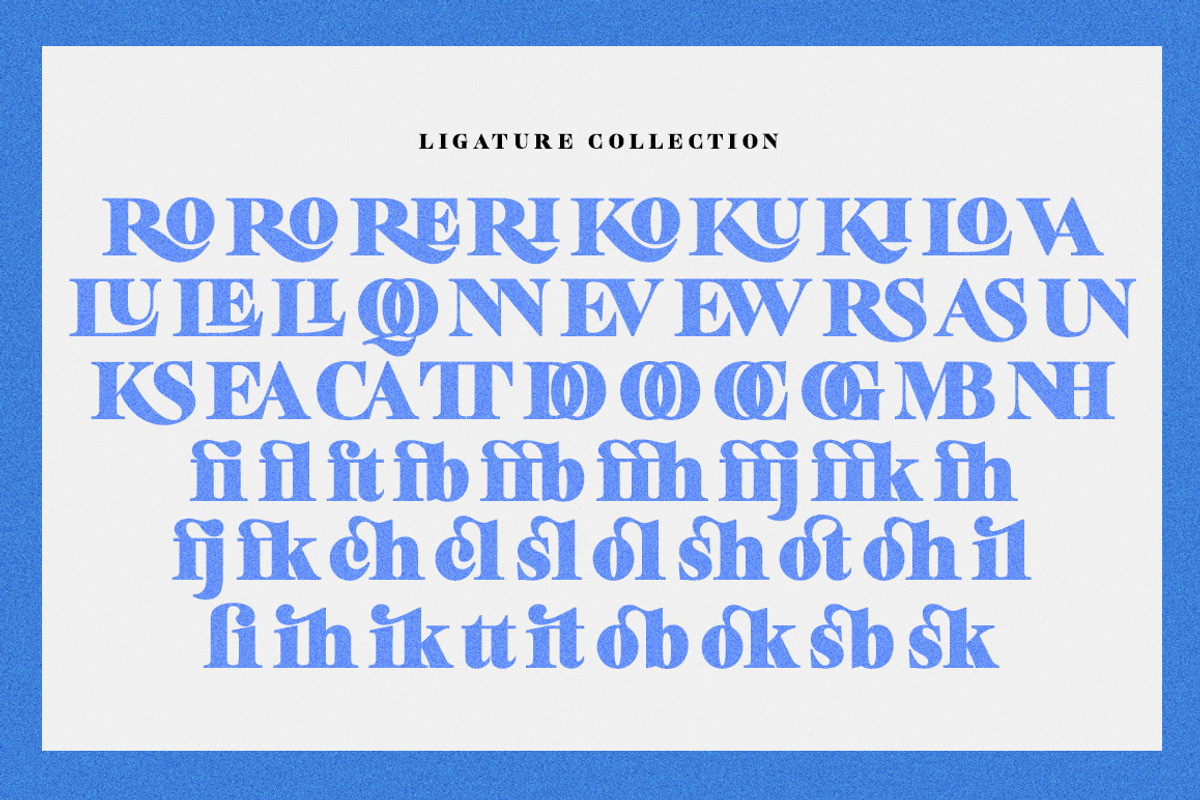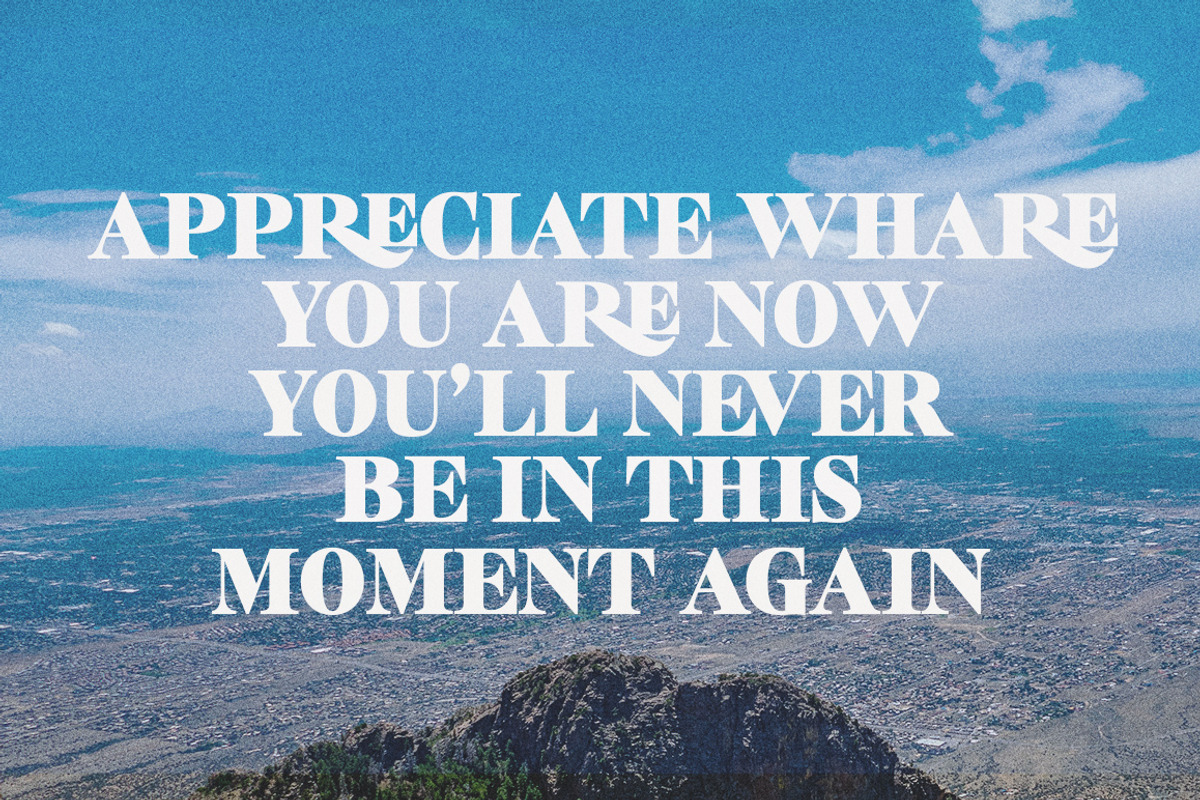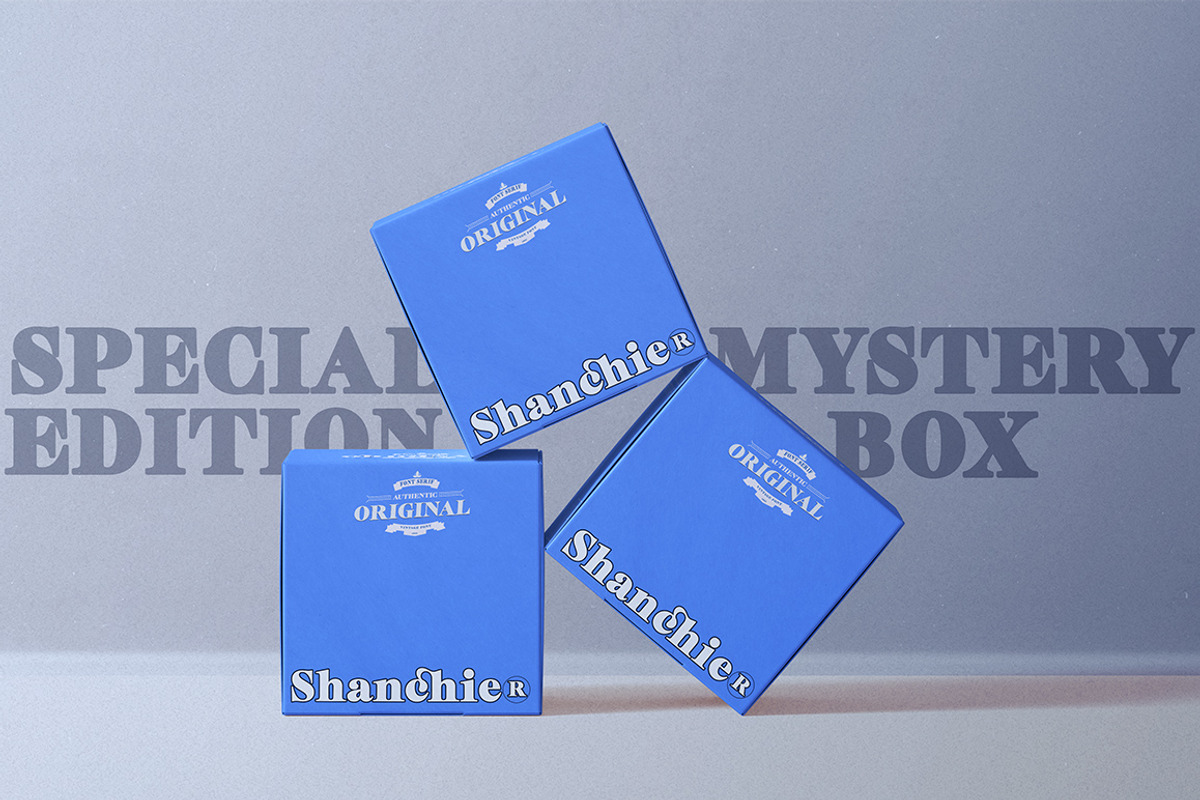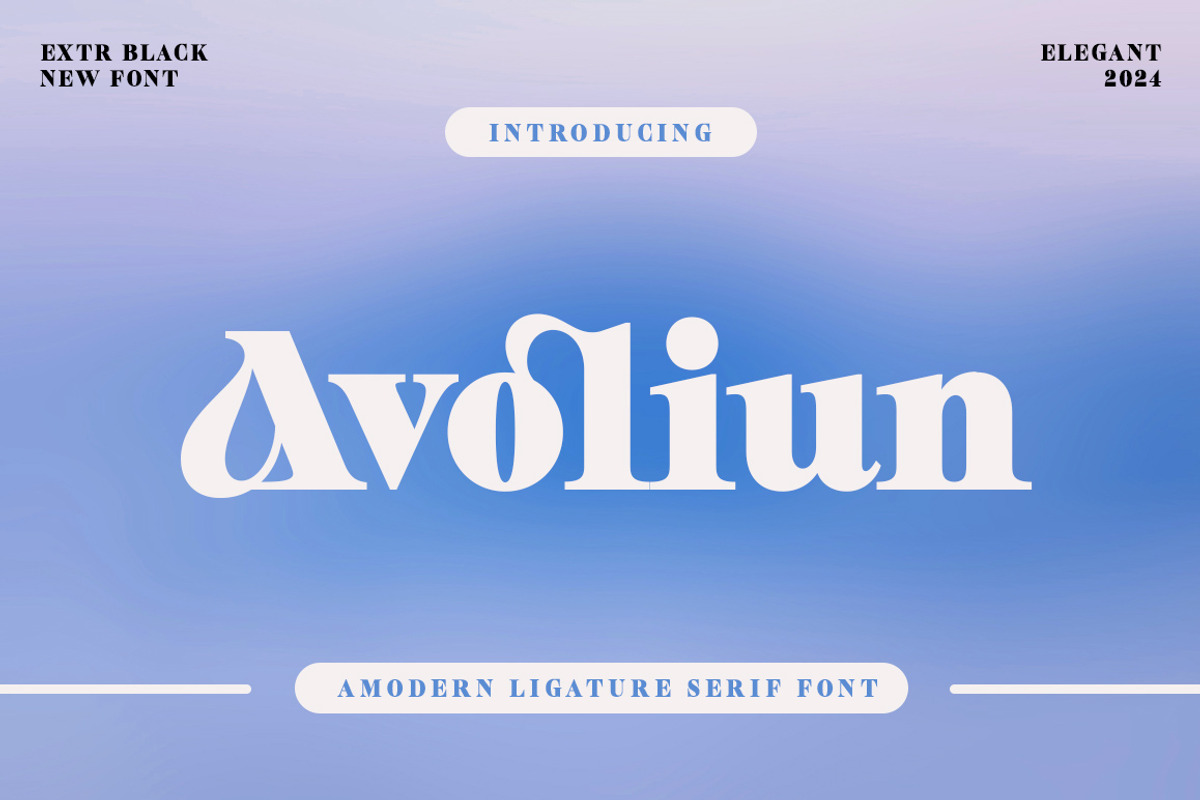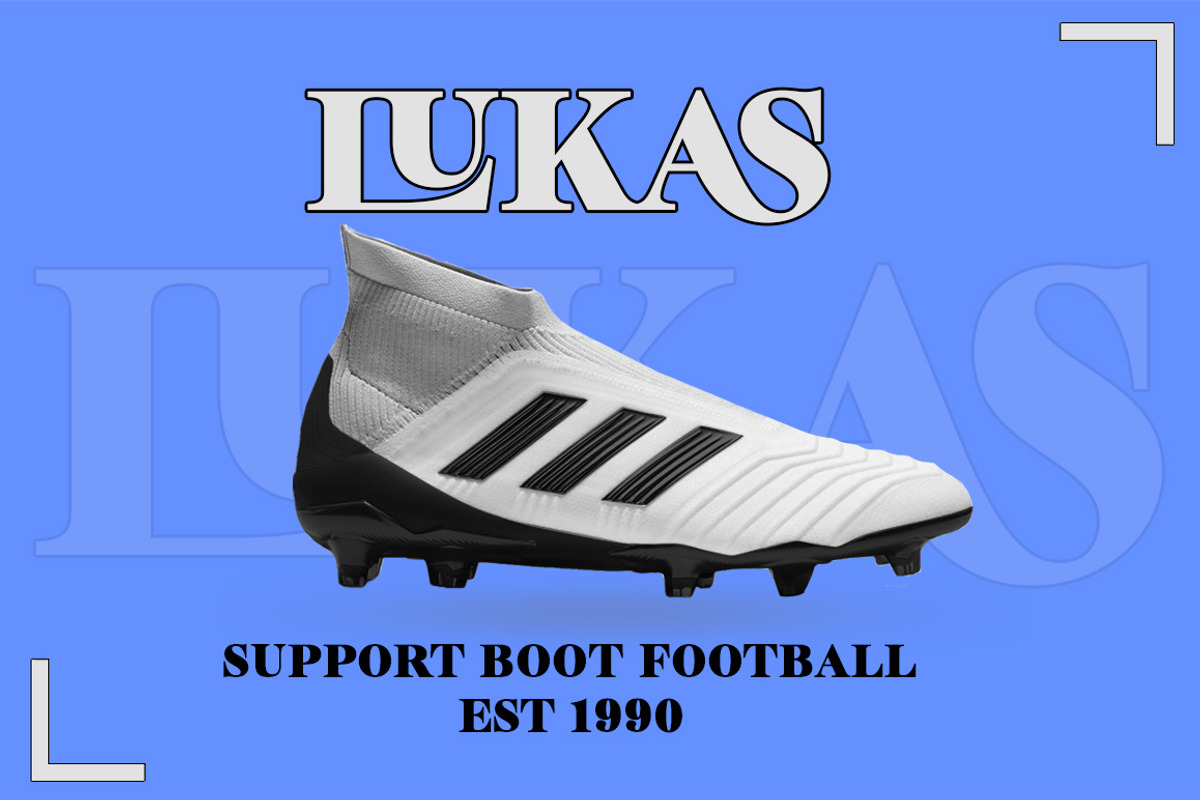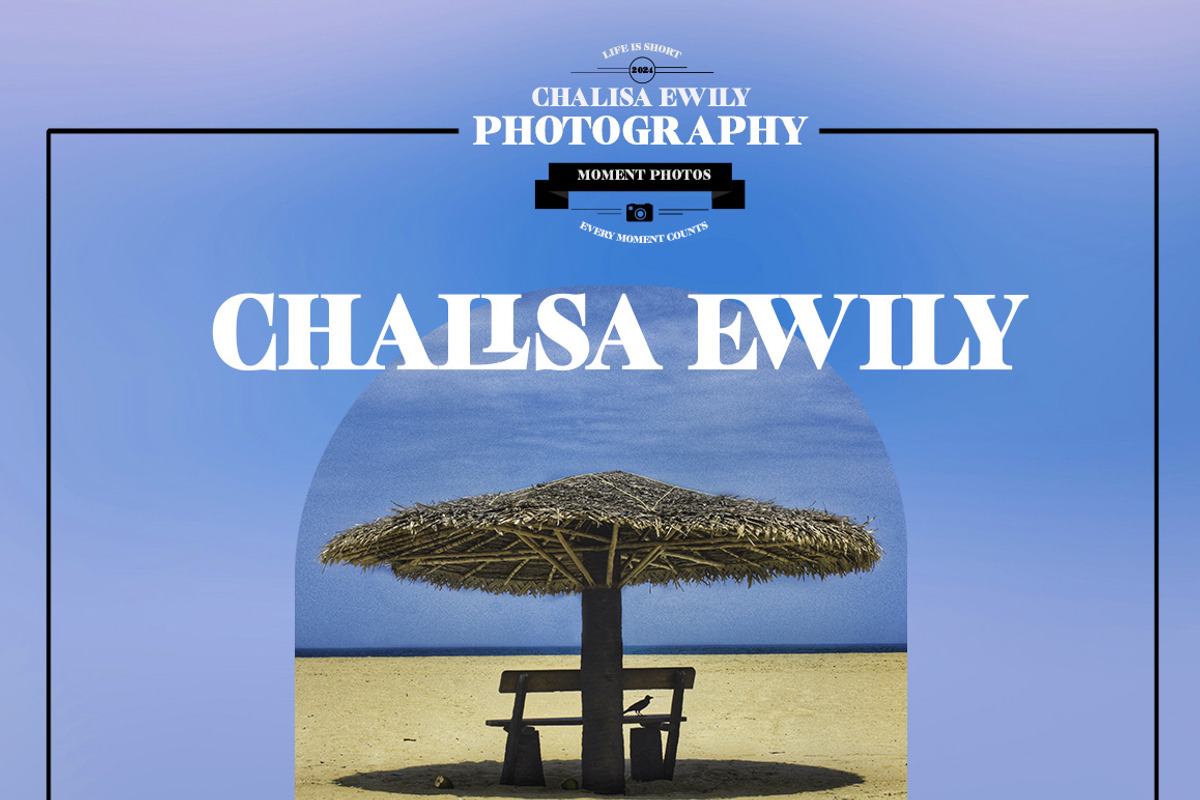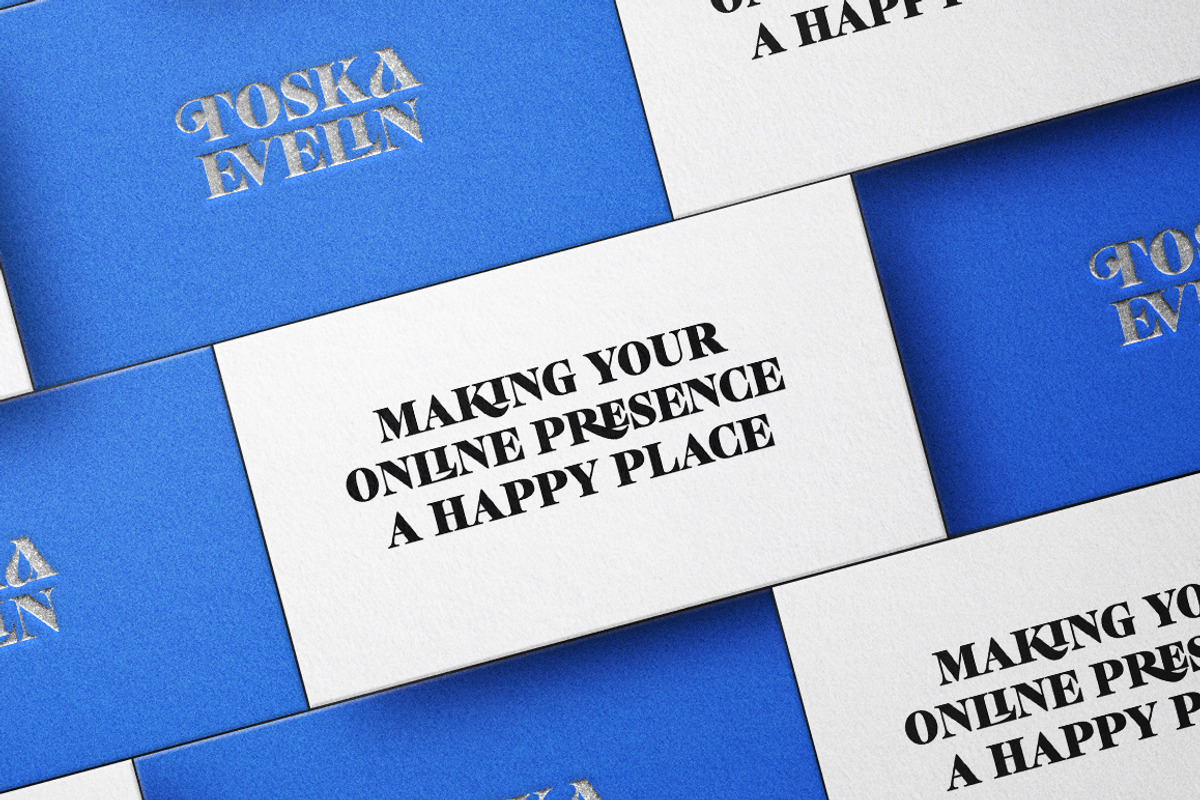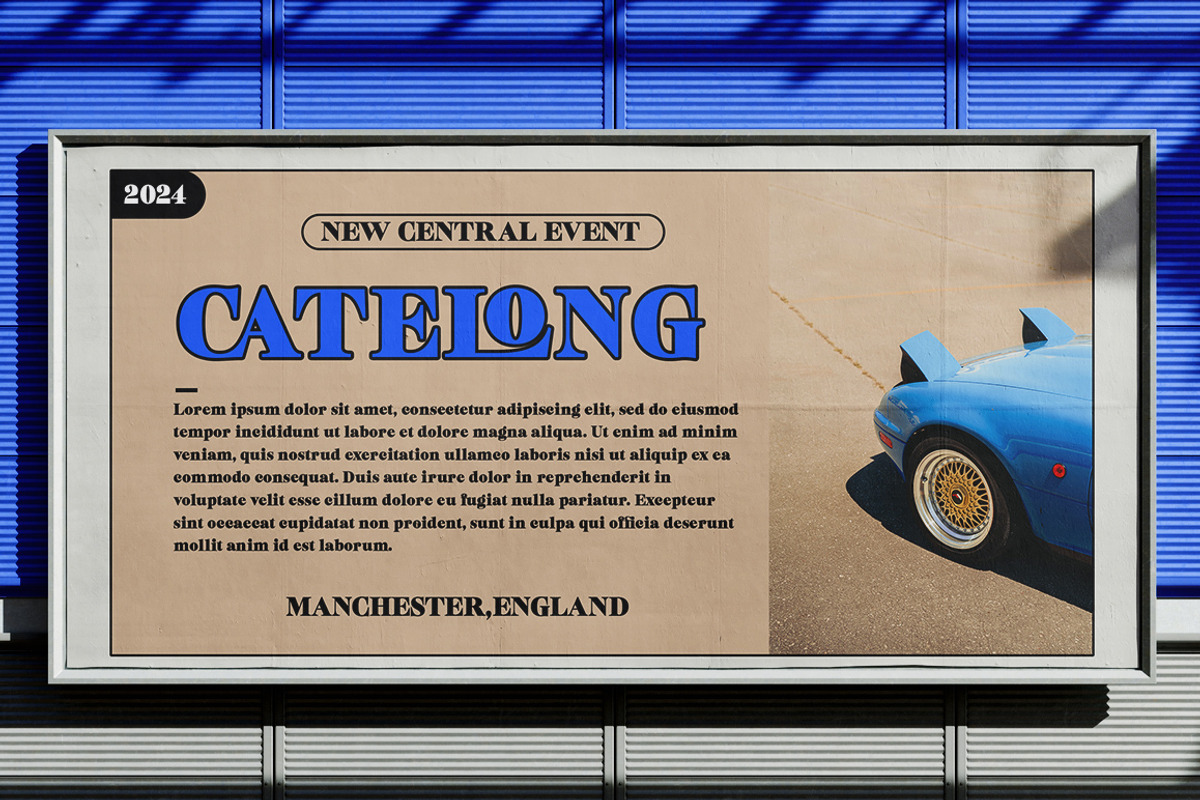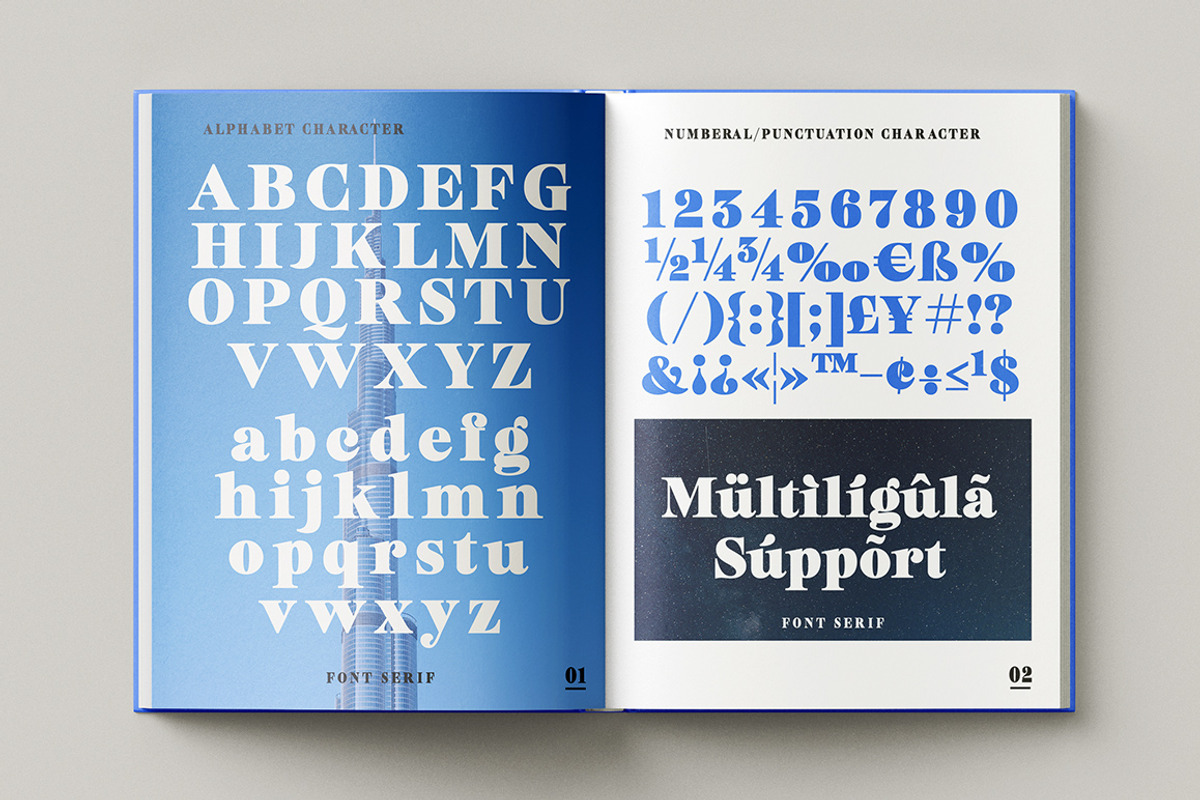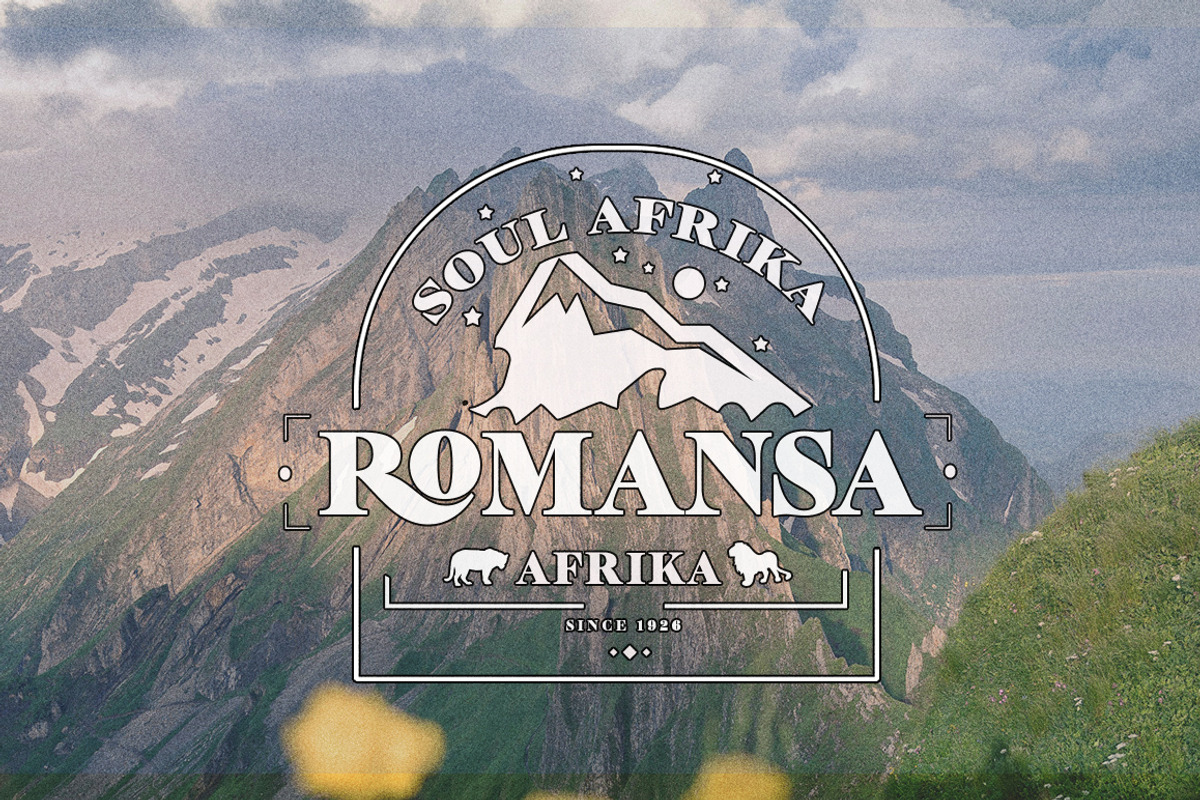
Avoliun
Avoliun is a font with a modern and elegant style, featuring clean lines and sleek design. Its readable yet attractive characters make it suitable for various global design needs, such as logos, posters, and professional branding.